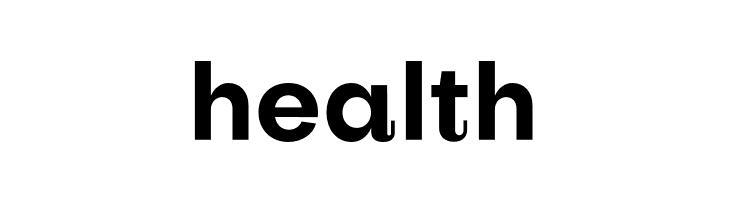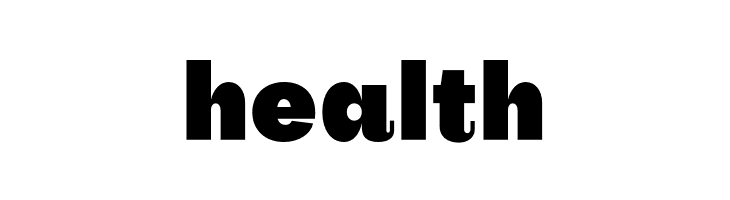
SubjectivitySerif-Regular Font
Subjectivity-Regular Font
A modern, geometric sans-serif font with clean lines and balanced spacing.
Subjectivity-Medium Font
Coelacanth Font
A classic serif font with a hand-crafted, elegant style.
Coelacanth Subheading Bold Font